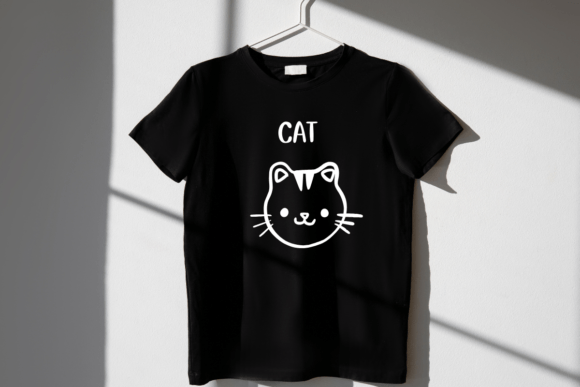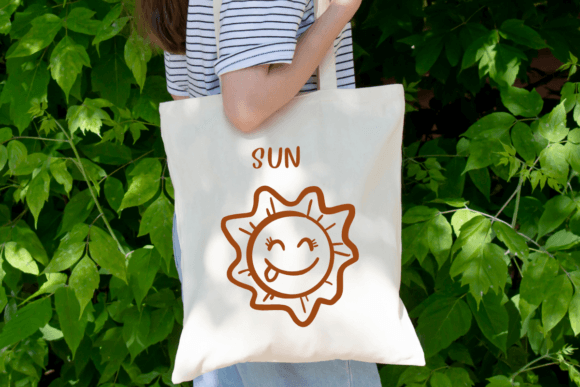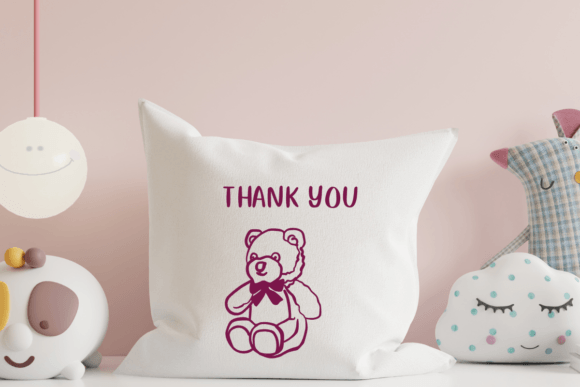
Unlock Your Creativity with the Doodle Bundle Font
Have you ever sat down with a blank canvas, a blank piece of paper, or a blank computer screen, and felt the urge to create something truly unique and special? For many of us, that moment of inspiration is what drives us to be creative, to bring our ideas to life, and to make a lasting impression. And that’s exactly where the Doodle Bundle Font comes in – a beautiful, hand-drawn dingbats font that adds a personal touch to any project.
With its sketch-style design, the Doodle Bundle Font is perfect for adding a whimsical, playful feel to wedding invitations, DIY crafts, decorations, logos, and so much more. As a designer, you know how valuable it is to have a font that can elevate your work and make it stand out from the crowd. The Doodle Bundle Font is that font, offering a range of creative possibilities that will inspire you to push the boundaries of your imagination.
Doodle Bundle Font Key Features
- Multi-font bundle: Includes 6 unique fonts, each with its own style and characteristics, to provide a wide range of creative options.
- Size: The font bundle includes fonts in various sizes, ranging from 6 to 48 points, to accommodate different design requirements.
- Resolution: Designed to be scalable, the fonts can be used at high resolutions (up to 300 DPI) for professional printing and publishing.
- Unique characteristics: Each font in the bundle has a distinctive doodle-inspired style, with intricate details and textures, making it perfect for creative projects and designs.
- Legibility: Despite its unique style, the font remains highly legible, even at smaller font sizes, making it suitable for a wide range of applications, including body text and headings.
Doodle Bundle Font Review
I recently had the chance to work with the Doodle Bundle Font, and I have to say it’s a unique and playful addition to any design project. ✨ The font’s quirky, handwritten style makes it perfect for creating a lighthearted and approachable atmosphere.
Here are some of the things that I think work well:
- The font’s versatility – it’s great for headings, titles, and even body text.
- The variety of styles included in the bundle – from bold to cursive, there’s something for every design need.
- The font’s ability to add a touch of whimsy and personality to any design.
- ⚠️ The font may be too playful for formal or professional designs.
- ⚠️ Some of the styles may be difficult to read in smaller sizes or at a distance.
- ⚠️ The font may not be suitable for designs that require a lot of text or complex layouts.
Overall, I think the Doodle Bundle Font is a great addition to any designer’s toolkit. While it may not be suitable for every project, it’s perfect for designs that need a touch of personality and whimsy. With a little creativity and restraint, this font can add a lot of value to your designs.
Tips for Getting the Most Out of Doodle Bundle Font
1. Experiment with different font sizes and styles to create unique and eye-catching designs.
2. Use the Doodle Bundle Font in combination with other creative elements, such as doodles and illustrations.
3. Consider using the Doodle Bundle Font for titles and headings to add a touch of whimsy and personality to your designs.
1. Social media graphics and posts.
2. Blog and website headers.
3. Marketing materials, such as flyers and brochures.
4. Educational materials, such as worksheets and activity sheets.